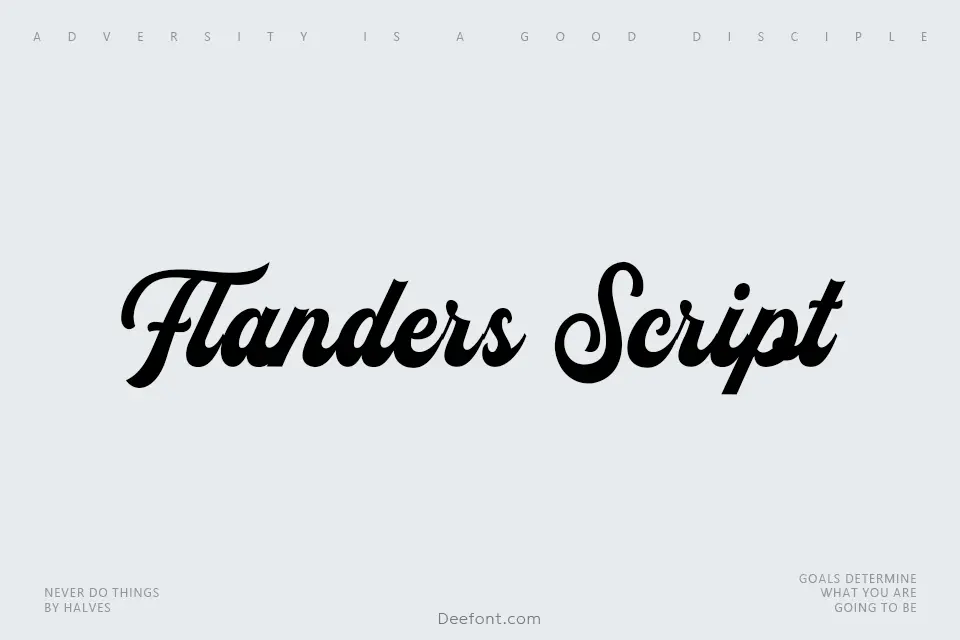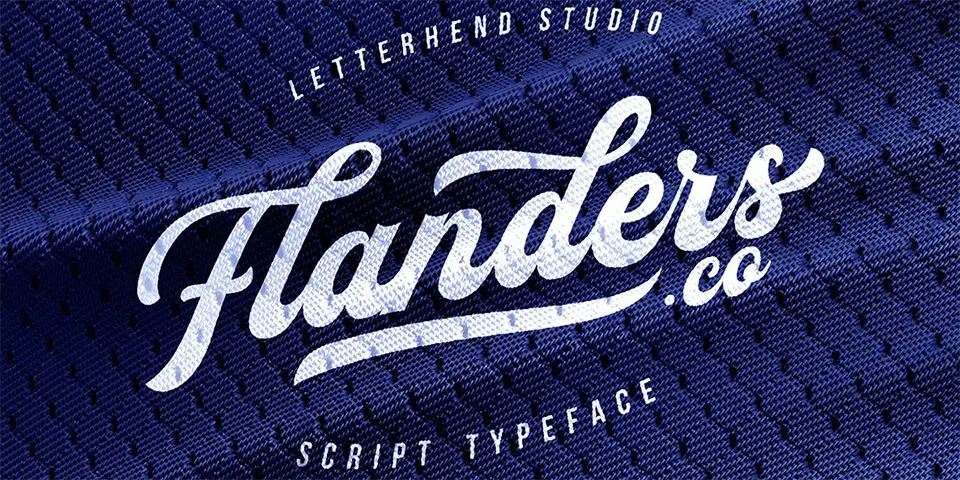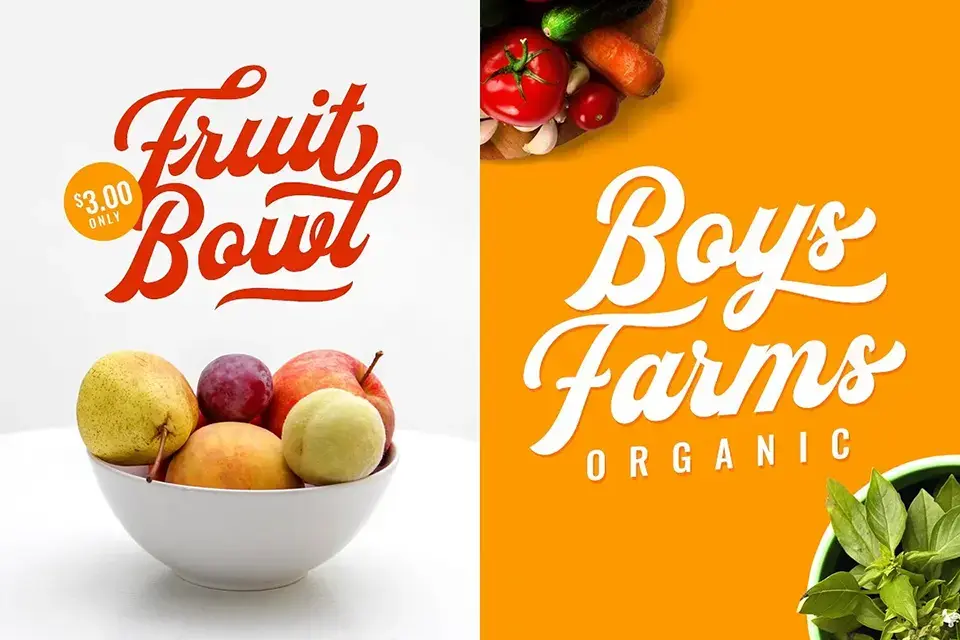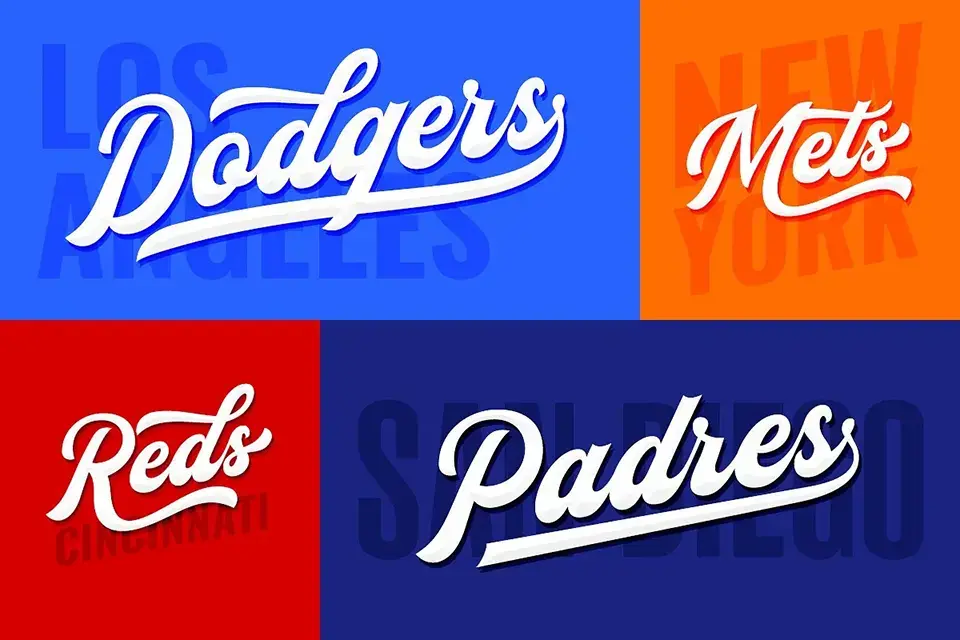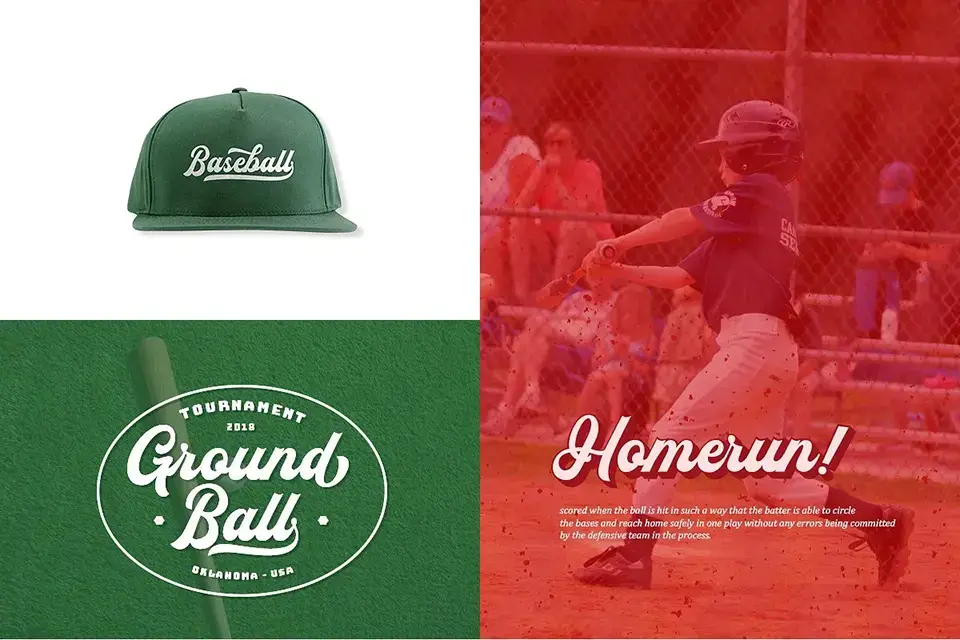
Flanders Script Font
Flanders Script is a bold and energetic script typeface that blends vintage charm with contemporary confidence. Designed with strong, sweeping strokes and dynamic letterforms, this font evokes the golden age of athletic branding and retro Americana. Rich OpenType features—including ligatures, stylistic alternates, contextual alternates, and expressive swashes—allow designers to craft distinctive wordmarks, headlines, and logotypes. Its powerful visual rhythm makes Flanders Script ideal for sports team identities, product packaging, apparel graphics, vintage posters, and any project demanding character-driven typography with a nostalgic edge.